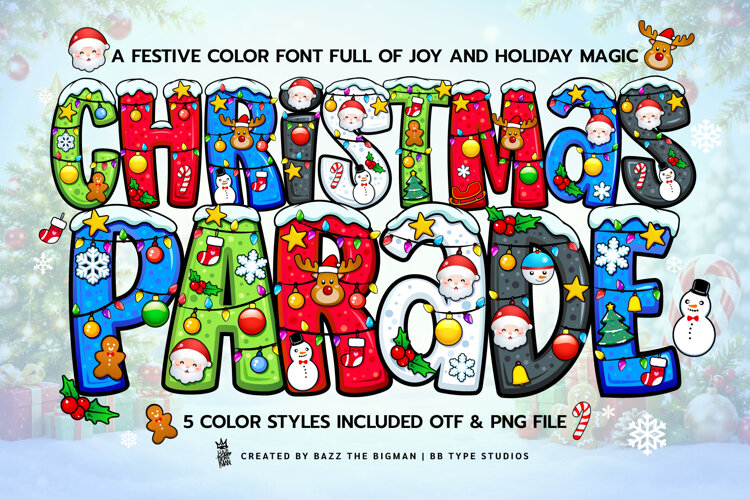
Christmas Parade
Christmas Parade is a cute and festive color font designed to bring the magic of Christmas to every letter! 🎄✨
Each letter is decorated with colorful Christmas lights, snow, ornaments, Santa, reindeer, snowmen, gingerbread cookies, candy canes, Christmas trees and more.
With 5 festive color styles, you can easily create cheerful and eye-catching Christmas designs projects.
🎁 5 Color Styles Included• Pine Green
• Santa Red
• Winter Blue
• Snow White
• Midnight Black
Turn every word into a Christmas celebration! 🎅🎄✨